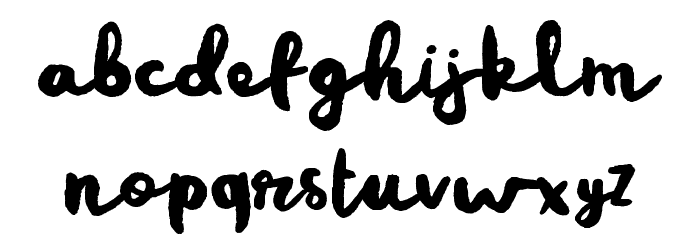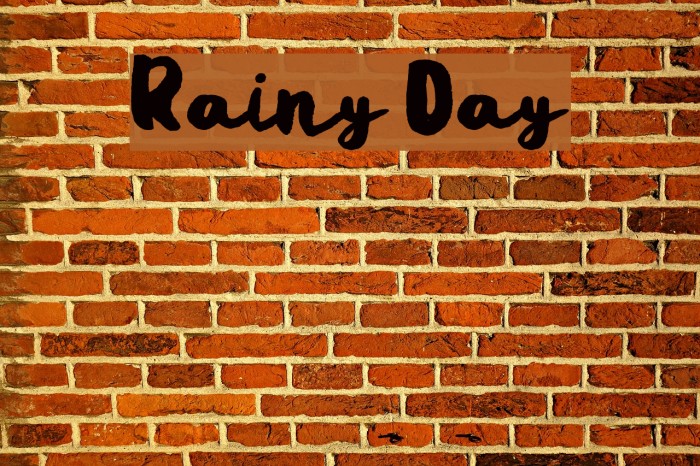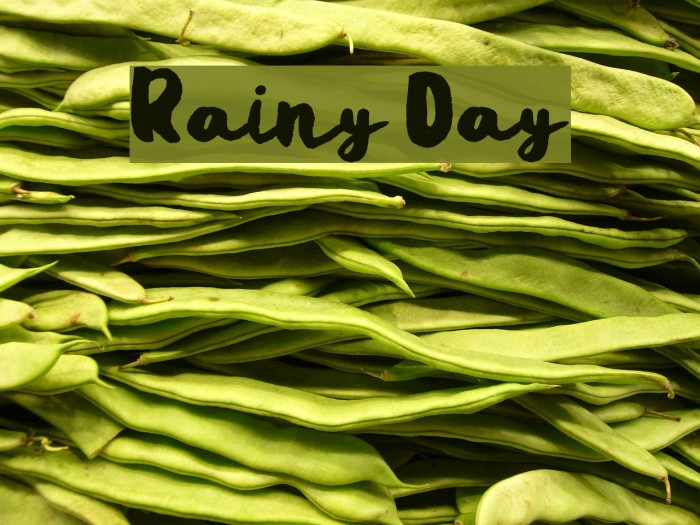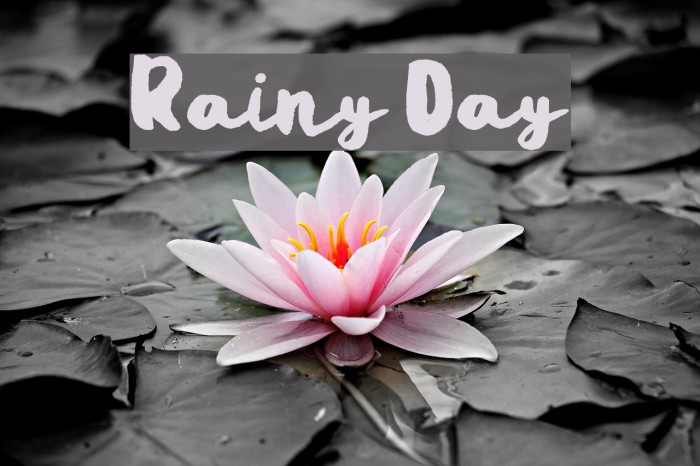
Rainy Day Font
This font features a bold and playful style with a hand-drawn appearance. The uppercase letters are thick and rounded, giving a sense of warmth and friendliness. The lowercase letters have a cursive, flowing style that adds a touch of elegance and informality. The numbers are consistent with the boldness of the uppercase letters, maintaining a cohesive look throughout. Special characters are creatively designed, matching the overall playful and artistic theme. This font is ideal for projects that require a personal and approachable touch, such as invitations, greeting cards, or creative branding.
A bold, playful font with a hand-drawn, cursive style.
- Proposed Projects: Invitations, greeting cards, creative branding, children's books.
- Overall Style: Playful, Artistic
- Use Case: Headlines, Logos, Invitations